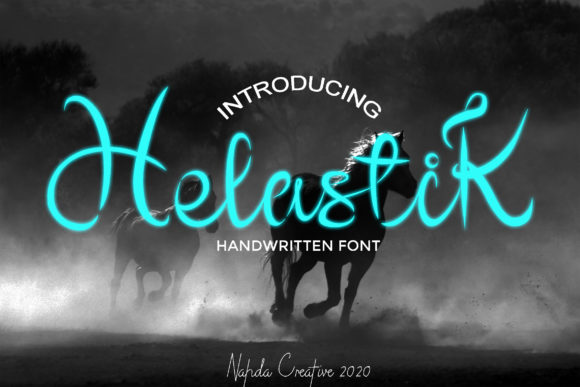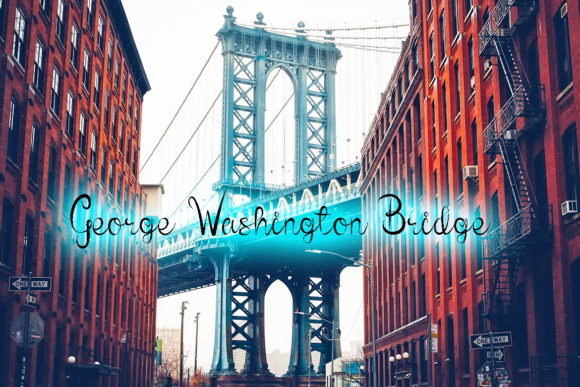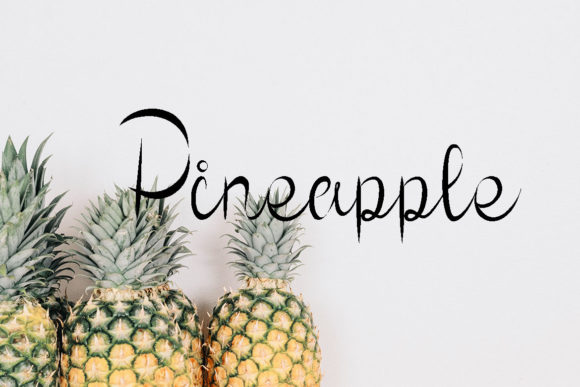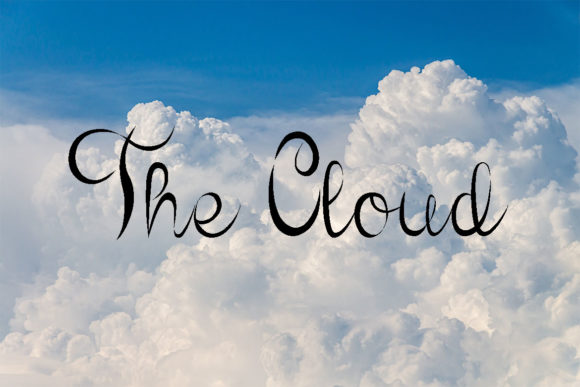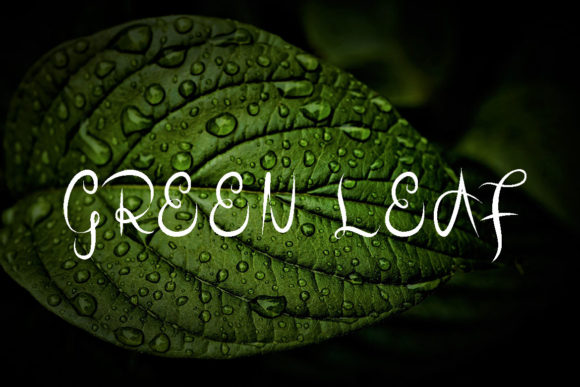
HelastiK Font
About HelastiK Font
HelastiK is a distinct and beautiful script font. Fall in love with its incredibly versatile style and use it to create gorgeous wedding invitations, beautiful stationary art, eye-catching social media posts, and much more!